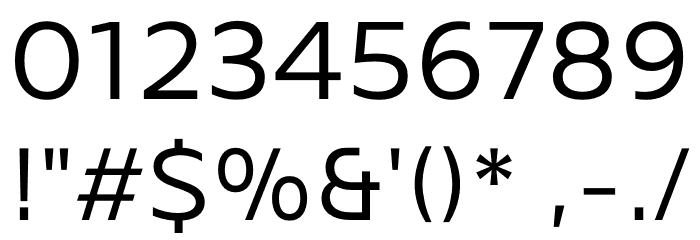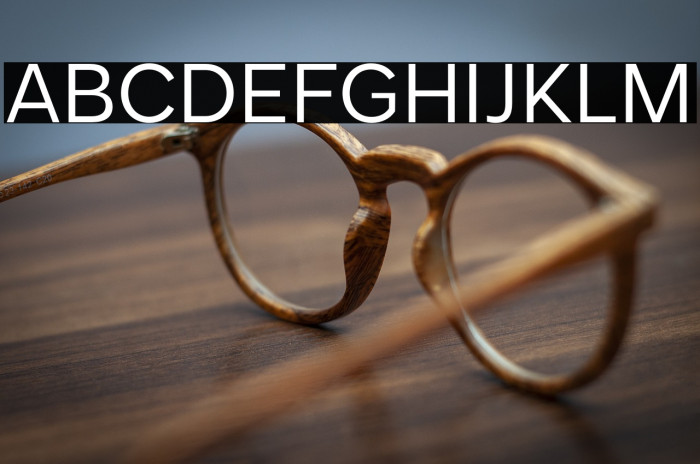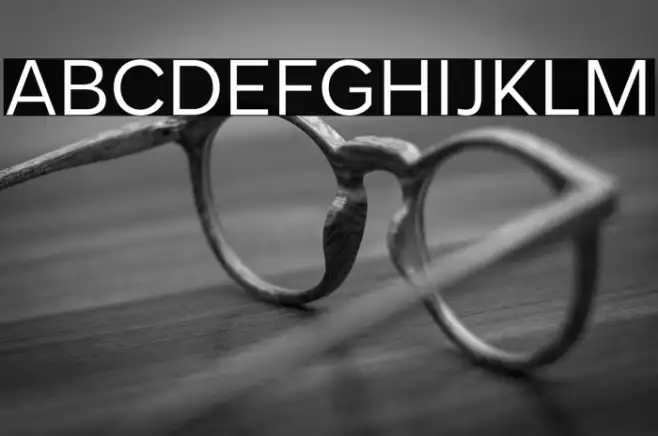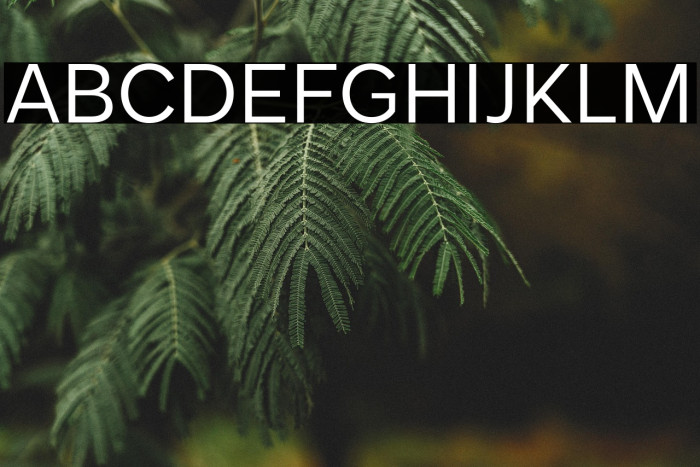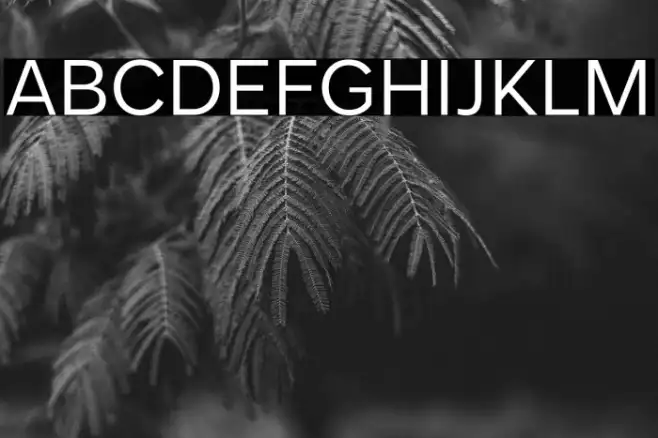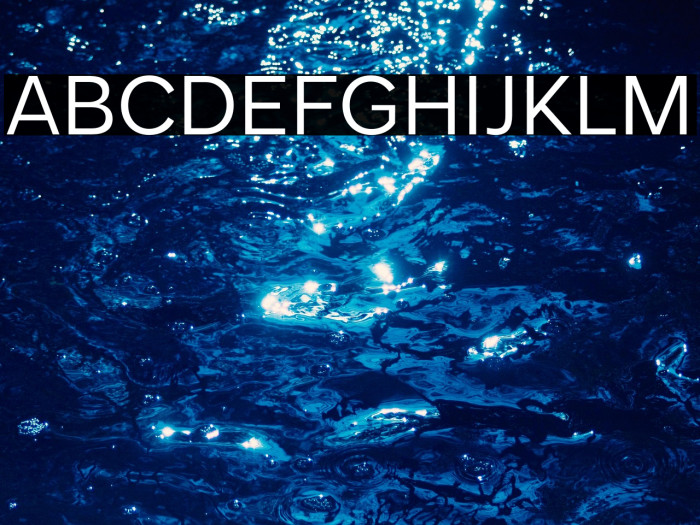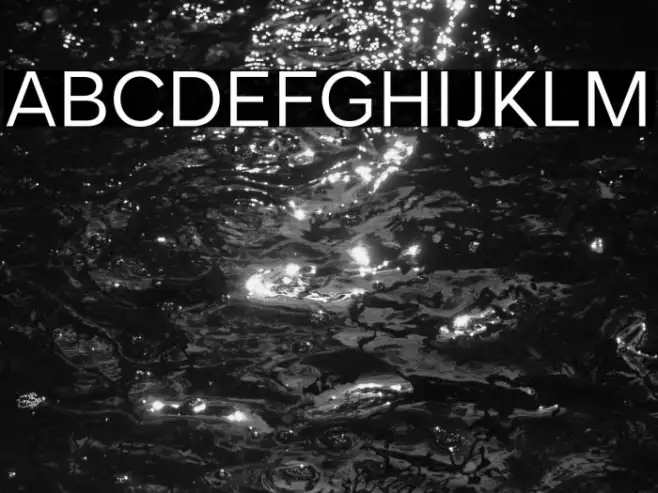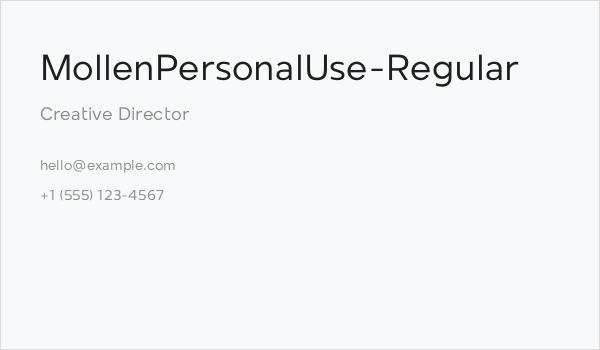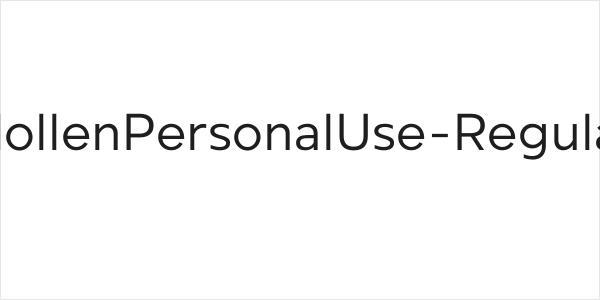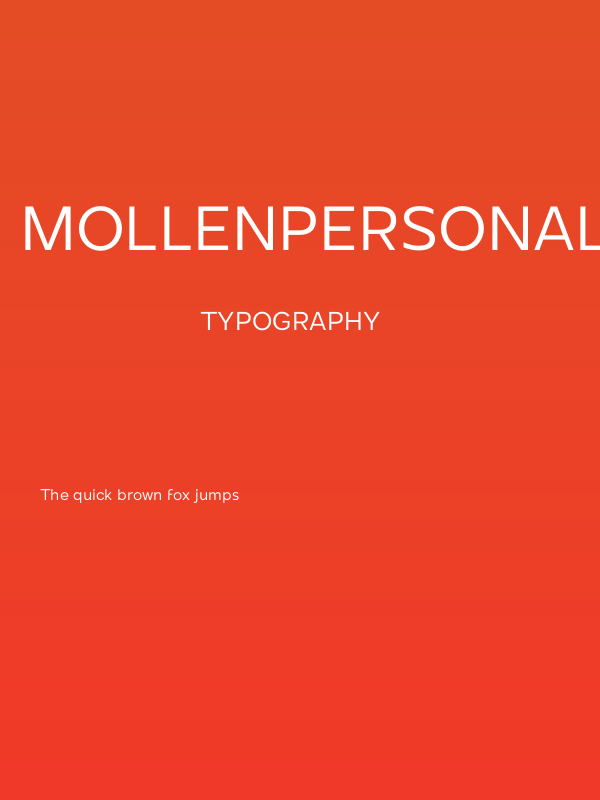
MollenPersonalUse-Regular Font
MollenPersonalUse-Regular Description
This font features a clean and modern sans-serif design, characterized by its simplicity and clarity. The letters are evenly spaced with a consistent stroke width, providing a balanced and harmonious appearance. The uppercase and lowercase letters are well-proportioned, making it highly legible. The numerals and special characters maintain the same design ethos, ensuring uniformity across all glyphs. Its straightforward style makes it versatile for various applications, from digital to print media.
| Proposed Projects | Ideal for branding, web design, corporate materials, and user interfaces due to its clarity and modern appeal. |